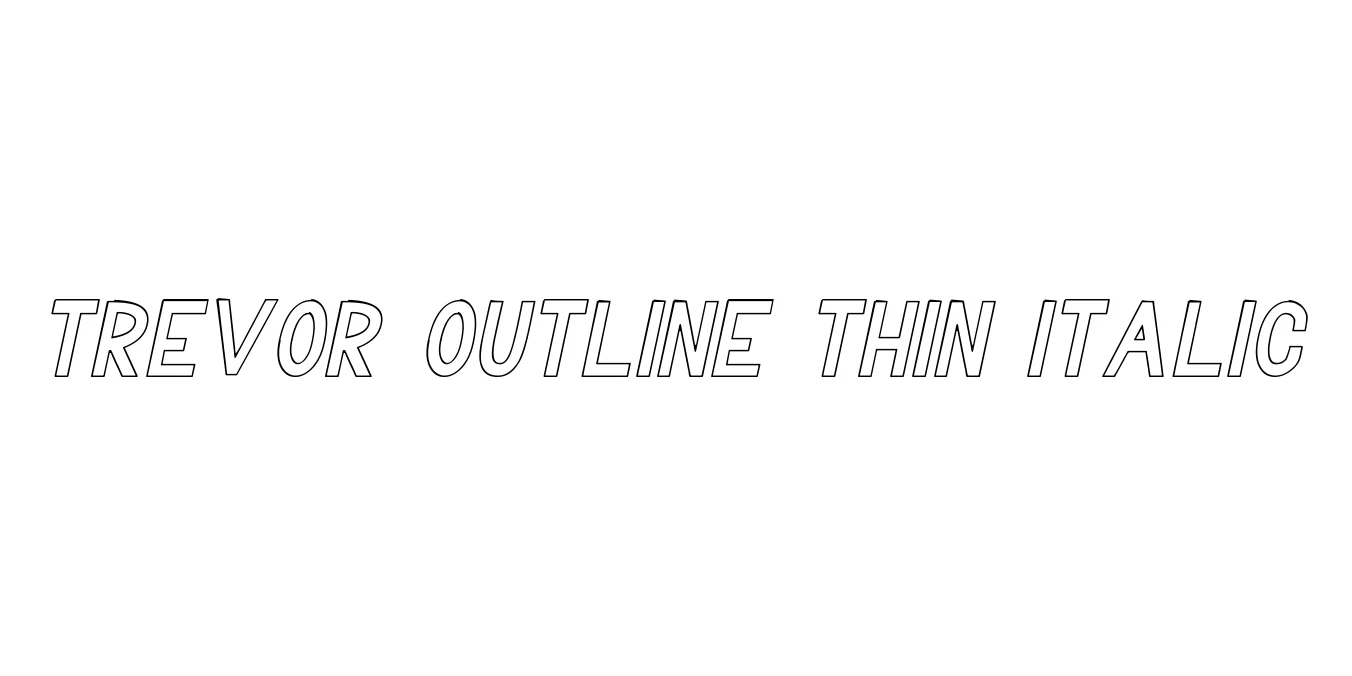
Trevor Outline Thin Italic
Designed by Vladimir Nikolic
| Category | Sans Serif / Display / Outline |
| Designer | Vladimir Nikolic |
Trevor Outline Thin Italic is a sophisticated and highly stylized typeface that embodies the principles of modern minimalism. Designed by Vladimir Nikolic, this font features a delicate outline structure that maintains clarity while adding a layer of architectural depth to typography. The italicized slant provides a sense of forward motion and elegance, making it particularly effective for designs that aim to look futuristic, sleek, or technologically advanced.
As part of the broader Trevor font family, this thin outline variant is optimized for display purposes where white space and breathability are key. It is often employed in luxury branding, high-end fashion editorials, and minimalist advertising where the font acts as both a functional text element and a decorative graphic feature. Its geometric roots ensure that even at larger scales, the proportions remain balanced and aesthetically pleasing across both print and digital mediums.
Trevor Outline Thin Italic Best Uses
Sophisticated logos for luxury brands and tech startups.
High-fashion magazine headers and artistic pull-quotes.
Elegant hero section headings and minimalist UI accents.
Minimalist posters and sophisticated digital billboards.